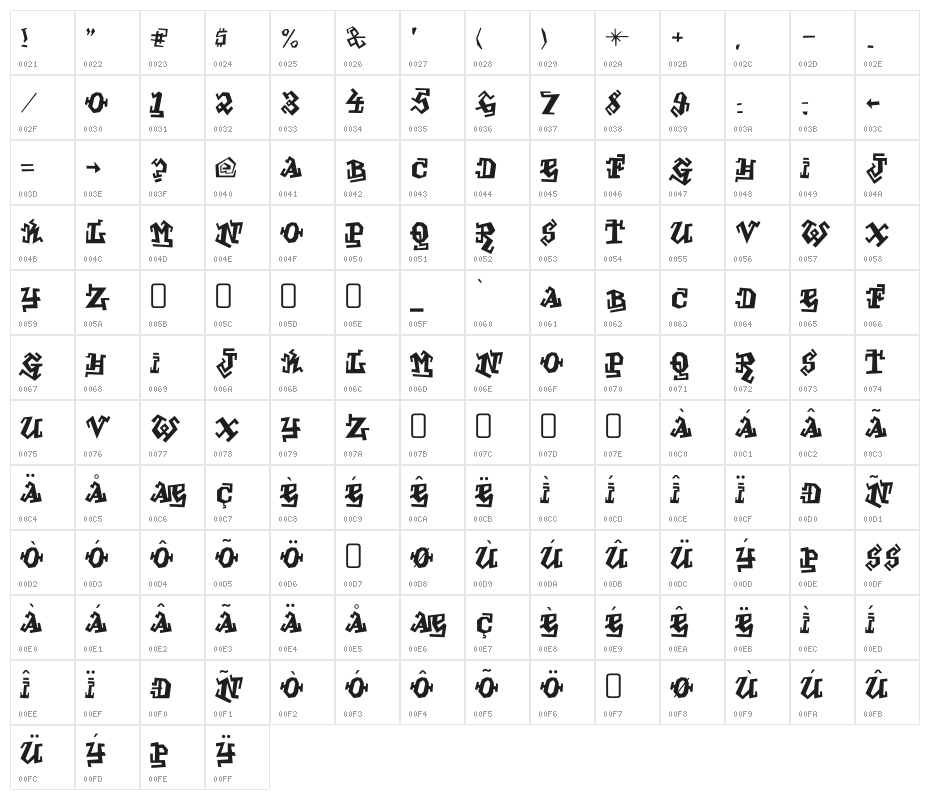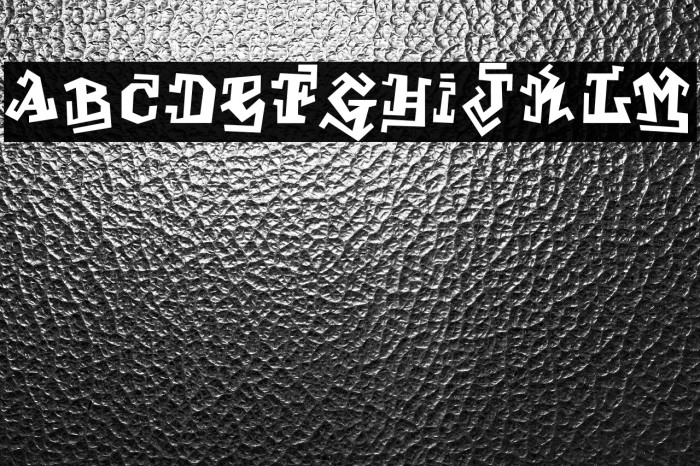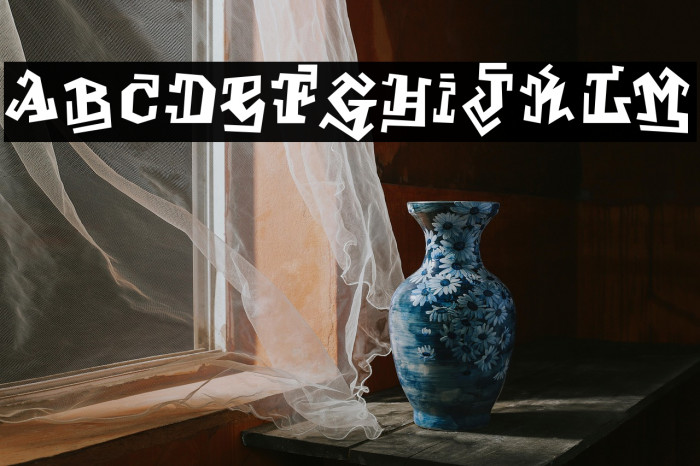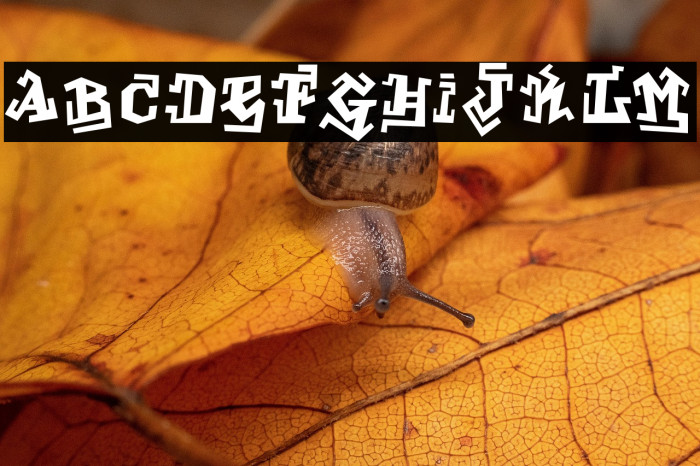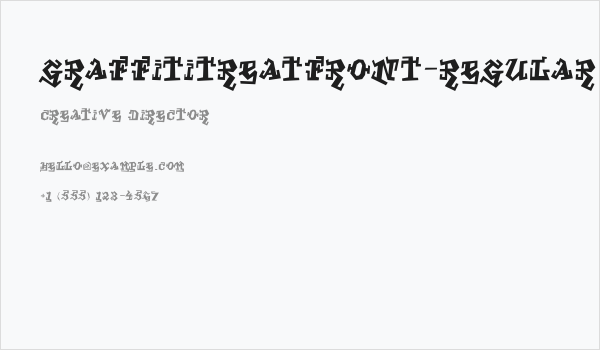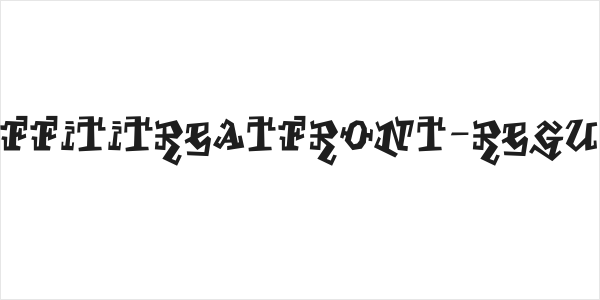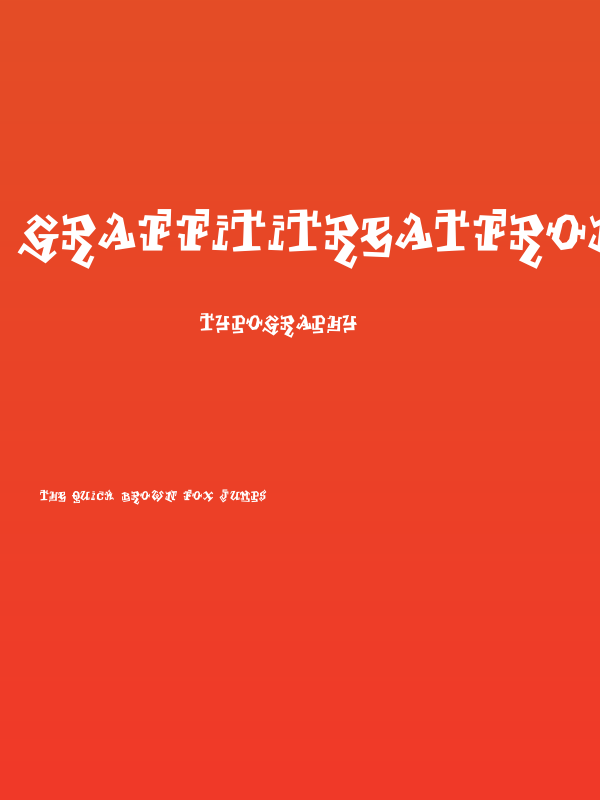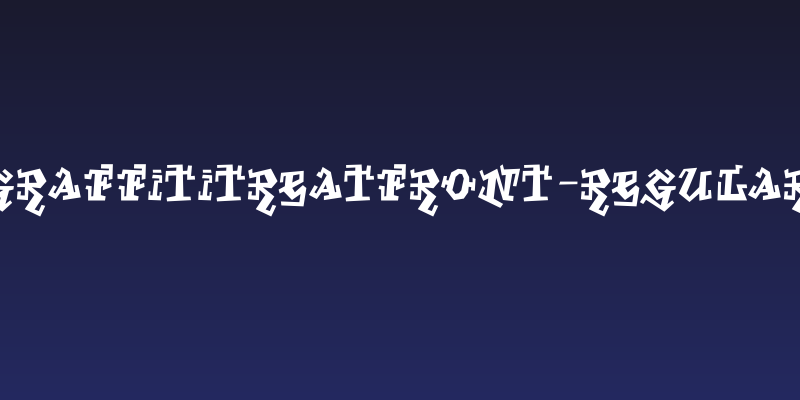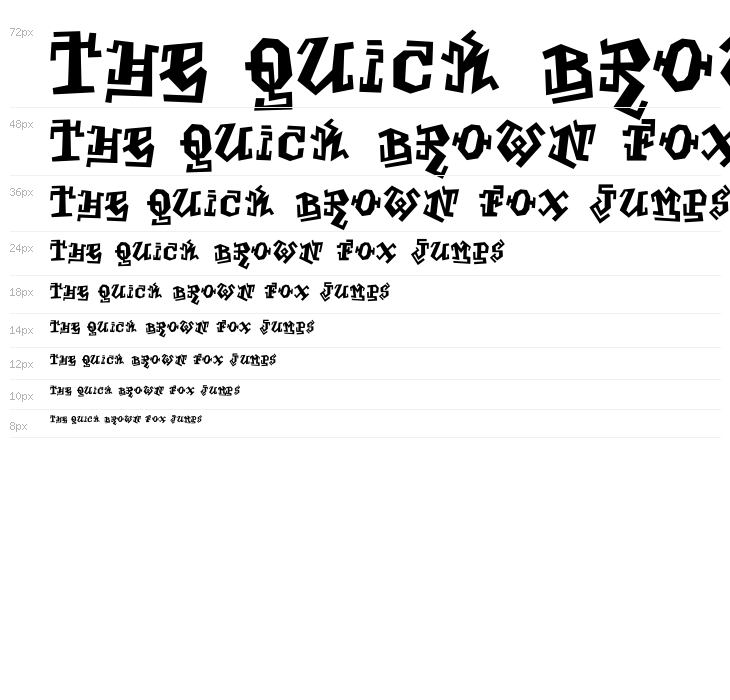
GraffitiTreatFront-Regular Font
GraffitiTreatFront-Regular Description
This font exudes a bold and edgy graffiti style, characterized by its angular and dynamic letterforms. Each character is uniquely stylized with sharp edges and a sense of movement, reminiscent of street art. The uppercase and lowercase letters maintain a consistent aesthetic, with exaggerated serifs and varying line thicknesses that add to its urban appeal. Numbers and special characters are equally expressive, ensuring a cohesive look across all text elements. The font's design captures the essence of rebellious creativity, making it ideal for projects that require a strong visual impact.
| Overall Style | Modern, Urban |
| Use Case | Logos, Posters, Headlines |
| Proposed Projects | Perfect for street art-themed designs, urban branding, music album covers, and event posters. |